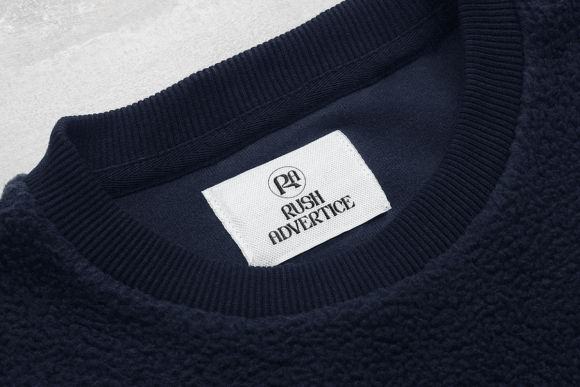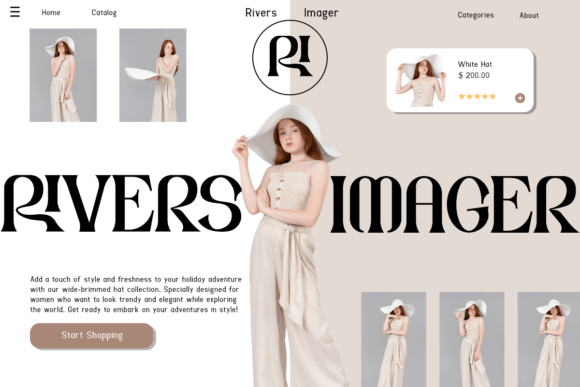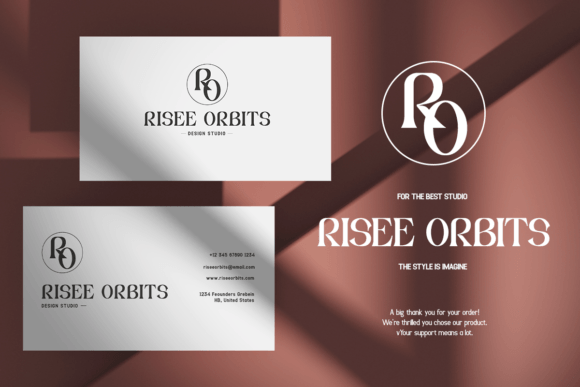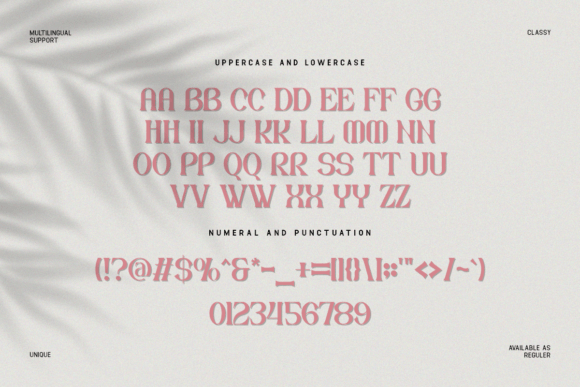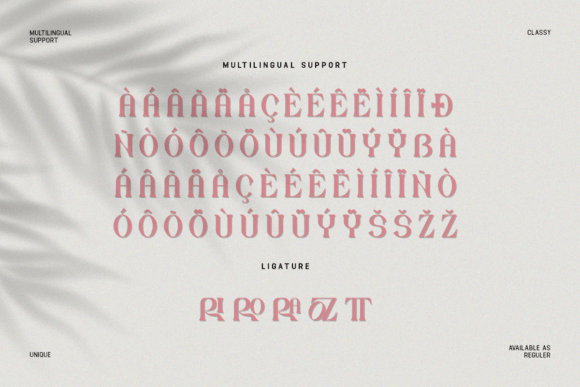
Introduction to Drivioz Font
Have you ever been working on a creative project and struggled to find the perfect font to match your vision? We’ve all been there – scrolling through endless options, only to find that they just don’t quite fit. But what if I told you that there’s a font that could change all that? Enter the Drivioz Font, a refined and versatile typeface that’s about to become your go-to design resource.
Whether you’re working on a high-end publication, a luxury brand, or a stylish presentation, the Drivioz Font is the perfect choice. Its well-crafted serifs and balanced letterforms exude sophistication and professionalism, making it an ideal addition to any creative project.
But what really sets the Drivioz Font apart is its adaptability. It’s the perfect blend of classic elegance and modern flair, making it suitable for both traditional and contemporary designs. And with its PUA encoding, you can access all of the cute glyphs and swashes with ease, taking your design to the next level.
Key Features of Drivioz Font
- High-quality font design suitable for creative projects, offering a unique and stylish look.
- Designed with a focus on clarity and readability, making it perfect for use in a variety of creative projects, from logos to signage.
- Unique characteristics and style make it an ideal choice for designers looking to add a touch of sophistication and elegance to their work.
Honest Review: Drivioz Font
I recently had the chance to work with the Drivioz Font for a creative project, and I must say it’s been a pleasant experience. One of the things that caught my attention was the high quality of the font. It’s clear that the designers put a lot of effort into creating a professional-looking font that’s perfect for various design needs.
Here are some of the things that work well with the Drivioz Font:
Overall, I’m impressed with the Drivioz Font. It’s a great design resource for designers who need a high-quality font that’s easy to work with. With its versatility and free download option, it’s definitely worth checking out.
Drivioz Font Overview
The Drivioz Font is a high-quality design resource that can add a unique touch to your creative project. With its sleek and modern design, it’s perfect for designers looking for a versatile font to use in various applications.
Tips for Getting the Most Out of Drivioz Font
To get the most out of the Drivioz Font, use it in conjunction with other design elements, such as graphics and images, to create a cohesive and visually appealing design.
Common Use Cases for Drivioz Font
The Drivioz Font is perfect for a variety of creative projects, including:
Yes, the Drivioz Font supports transparent backgrounds, making it ideal for use on websites with background images or videos. Simply install the font on your computer and use it in your web design project.